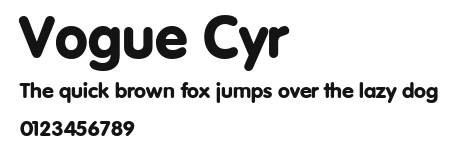
Vogue Cyr Preview
• Font Name: Vogue Cyr
• Full Font Name: Vogue Cyr Bold
About Vogue Cyr.ttf
Vogue Cyr.ttf is a modern, elegant sans-serif font designed for ultimate readability and visual harmony. Perfect for branding, headlines, web design, and print materials.